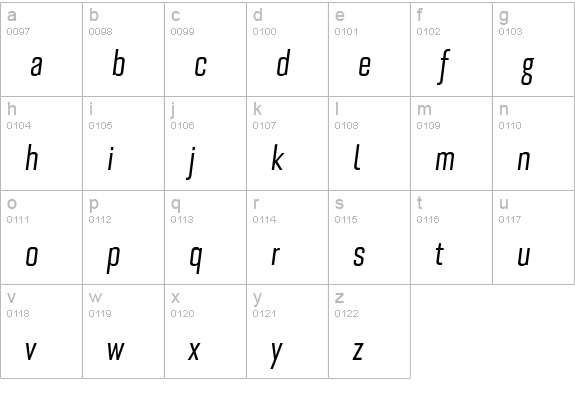
Bourgeois BookCondItal Font Details
The Bourgeois BookCondItal font exudes elegance and sophistication with its slender and refined letterforms. Its italic style adds a touch of grace and fluidity, making it perfect for conveying a sense of sophistication and class in your designs. The delicate curves and precise angles of this font make it a versatile choice for a wide range of projects, from branding to editorial design. What sets Bourgeois BookCondItal font apart is not just its aesthetic appeal, but also the fact that it is available for free download at FontsMarket.com. This means that you can easily access and use this exquisite font in your projects without any cost, making it a valuable addition to your font library. Whether you're working on a high-end branding project or a stylish editorial layout, Bourgeois BookCondItal font is sure to elevate your designs and leave a lasting impression. Download it for free today and bring a touch of sophistication to your next project.